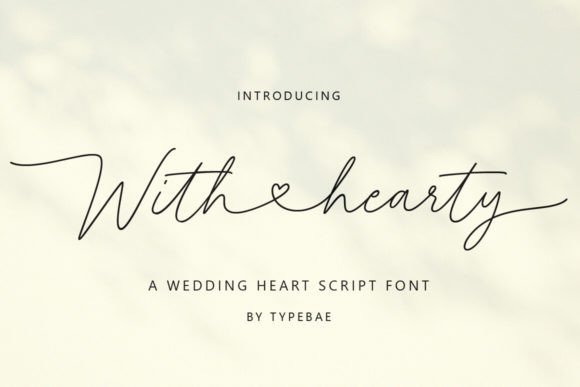
Introducing With Hearty Font: The Epitome of Elegance and Romance
In the realm of typography, few fonts manage to capture the essence of elegance and romance as effectively as With Hearty Font. This exquisite and delicate handwritten script font is a masterpiece of design, boasting captivating letter alternatives and enchanting tails at the beginning and end of each stroke. The distinctive attribute of With Hearty Font lies in its heart-shaped connecting tail, which adds a touch of whimsy and charm to any text it adorns.
Key Features of With Hearty Font
- Exquisite Handwritten Script: With Hearty Font is a beautiful example of handwritten typography, with each letter meticulously crafted to exude elegance and sophistication.
- Captivating Letter Alternatives: The font features a range of captivating letter alternatives, allowing designers to add a touch of personality to their text.
- Enchanting Tails: Each stroke in With Hearty Font is adorned with enchanting tails at the beginning and end, adding a touch of magic to the text.
- Heart-Shaped Connecting Tail: The font’s distinctive heart-shaped connecting tail is a game-changer, adding a touch of romance and charm to any text.
The Design Inspiration Behind With Hearty Font
The design of With Hearty Font is inspired by the beauty of handwritten typography. The font’s creator aimed to craft a font that would evoke feelings of elegance, romance, and whimsy. With Hearty Font is perfect for designers looking to add a touch of sophistication and charm to their designs.
10 Creative Ways to Use With Hearty Font
- Wedding Invitations: With Hearty Font is perfect for wedding invitations, adding a touch of romance and elegance to the design.
- Branding and Packaging: The font’s unique design makes it an excellent choice for branding and packaging, helping businesses stand out from the competition.
- Social Media Graphics: With Hearty Font can add a touch of personality to social media graphics, making them more engaging and shareable.
- Blog Post Titles: The font’s elegant design makes it perfect for blog post titles, adding a touch of sophistication to the design.
- Product Labels: With Hearty Font can add a touch of whimsy and charm to product labels, making them more eye-catching.
- Event Promotions: The font’s enchanting design makes it perfect for event promotions, such as posters, flyers, and brochures.
- Logo Design: With Hearty Font can be used to create stunning logos that exude elegance and sophistication.
- Stationery: The font’s elegant design makes it perfect for stationery, such as letterheads, business cards, and envelopes.
- Infographics: With Hearty Font can add a touch of personality to infographics, making them more engaging and shareable.
- Book Covers: The font’s captivating design makes it perfect for book covers, adding a touch of elegance and sophistication to the design.
Typography Tips for Using With Hearty Font
To get the most out of With Hearty Font, it’s essential to follow some basic typography tips:
- Use it sparingly: With Hearty Font is a statement font, so use it sparingly to avoid overwhelming the design.
- Pair it with a sans-serif font: Pairing With Hearty Font with a sans-serif font can create a beautiful contrast and add visual interest to the design.
- Adjust the font size: Experiment with different font sizes to create visual hierarchy and add emphasis to specific text elements.
- Play with colors: With Hearty Font looks stunning in a range of colors, so don’t be afraid to experiment and find the perfect hue for your design.
Technical Details of With Hearty Font
- Font Type: With Hearty Font is a handwritten script font.
- Language Support: With Hearty Font supports a range of languages, including English, French, German, Italian, and Spanish.
- Character Set: The font features a comprehensive character set, including uppercase and lowercase letters, numbers, and punctuation marks.
With Hearty Font is a stunning handwritten script font that exudes elegance and romance. Its captivating letter alternatives, enchanting tails, and heart-shaped connecting tail make it perfect for designers looking to add a touch of sophistication and charm to their designs. Whether you’re designing wedding invitations, branding materials, or social media graphics, With Hearty Font is sure to captivate and inspire.